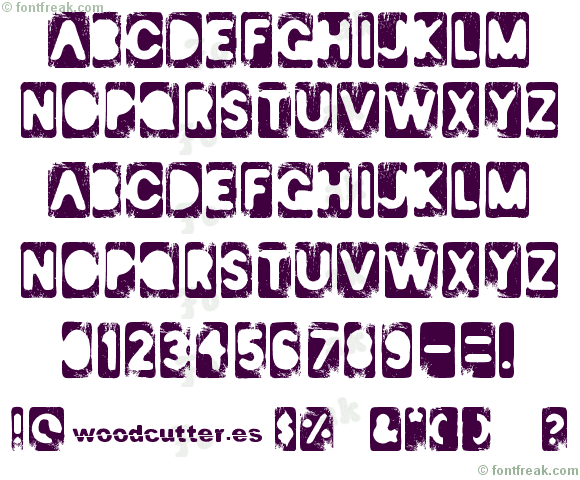
Italian Revolution
About Italian Revolution
The Italian Revolution font, crafted by woodcutter Manero, is a striking display typeface that captures attention with its unique aesthetic. This font features a bold, heavy stroke weight that evokes a sense of strength and presence, ideal for designs that demand to be noticed. The character shapes exhibit a rugged charm, demonstrating a balance between a modern sensibility and a classic vintage appeal. The uneven edges and slight texture add a layer of character, making each letter seem handcrafted, while the generous spacing between the characters enhances readability.
This font is particularly well-suited for a variety of creative applications. It can make a bold statement in wedding invitations, providing a touch of personality that resonates with the theme of love and celebration. Additionally, the Italian Revolution font excels in movie posters, where its dramatic flair can draw audiences into the cinematic experience. Restaurant menus can also benefit from this typeface, offering a unique visual identity that reflects the establishment's ambiance. Furthermore, branding materials for small businesses will find this font to be a perfect match, as it conveys a sense of authenticity and artisanal quality.